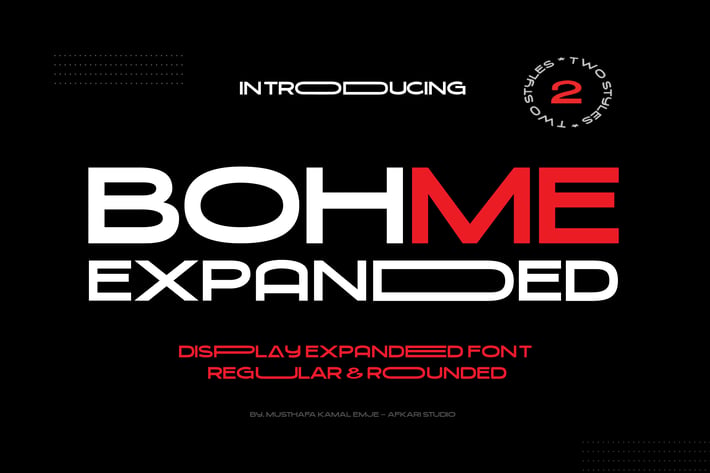
Bohme Expanded - Display Sans Serif Font
Introducing Bohme Expanded, a dynamic and modern Display Sans Serif Font that takes typography to new heights. This font, characterized by its bold and expansive design, is crafted for those seeking a typeface that seamlessly combines contemporary aesthetics with a touch of sophistication.
Bohme Expanded is not just a font; it's a design statement. Its expansive letterforms exude confidence, making it the perfect choice for projects that demand attention and impact. Whether you're designing headings, logos, posters, or any creative endeavor that requires a bold and stylish touch, Bohme Expanded is your go-to typeface.
Key Features:
- Uppercase, lowercase, numbers, and punctuation
- Expansive and bold letterforms for a commanding presence
- Versatile for a variety of design applications